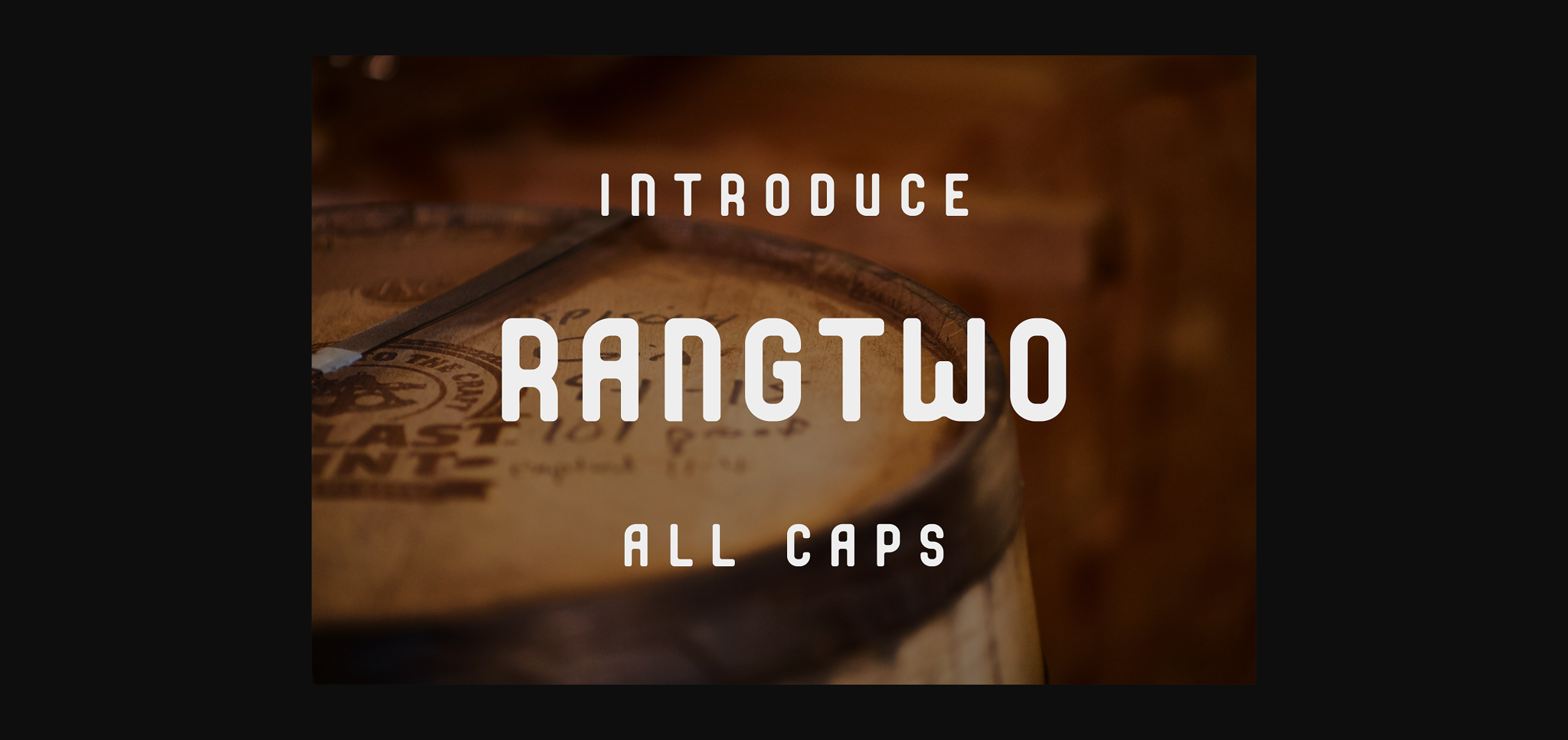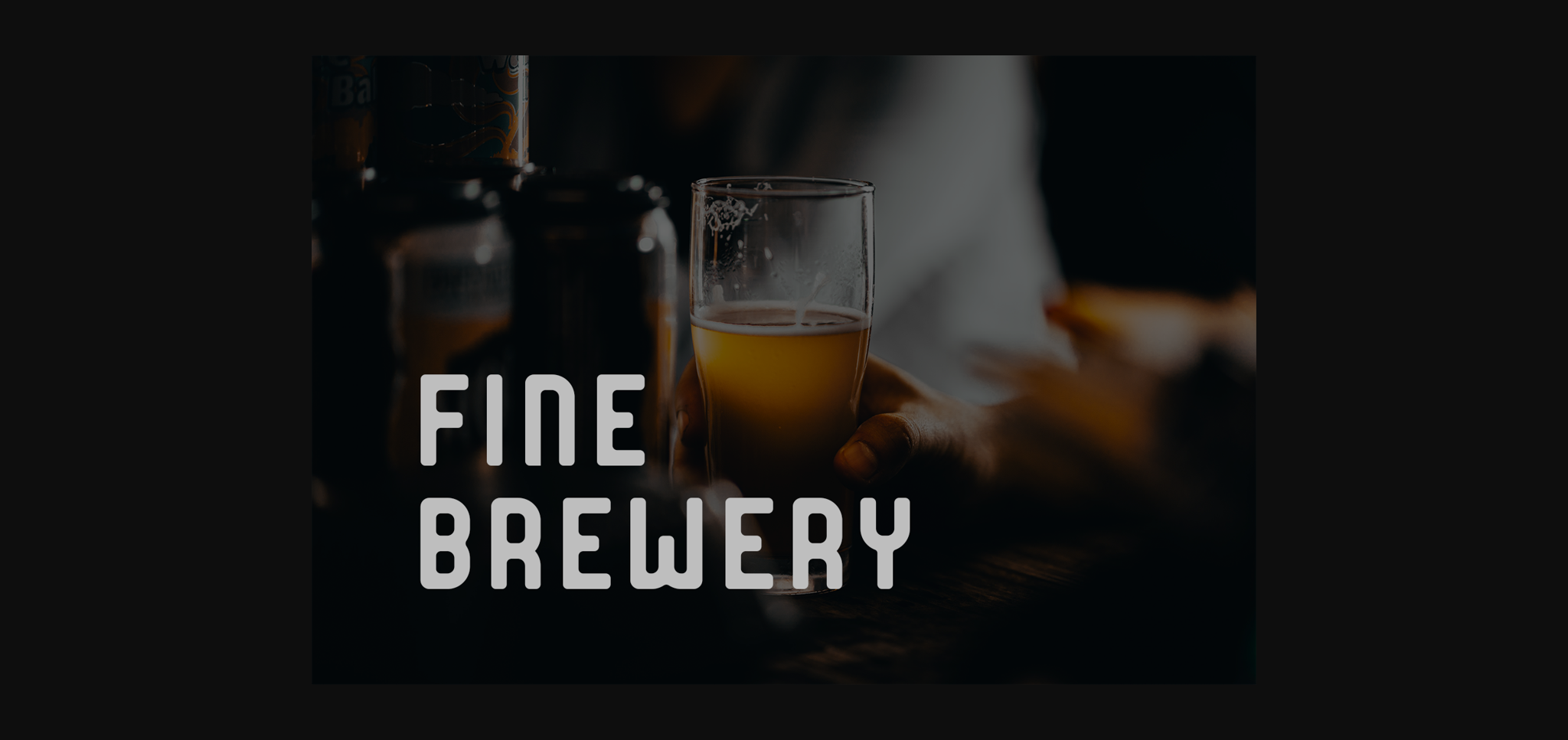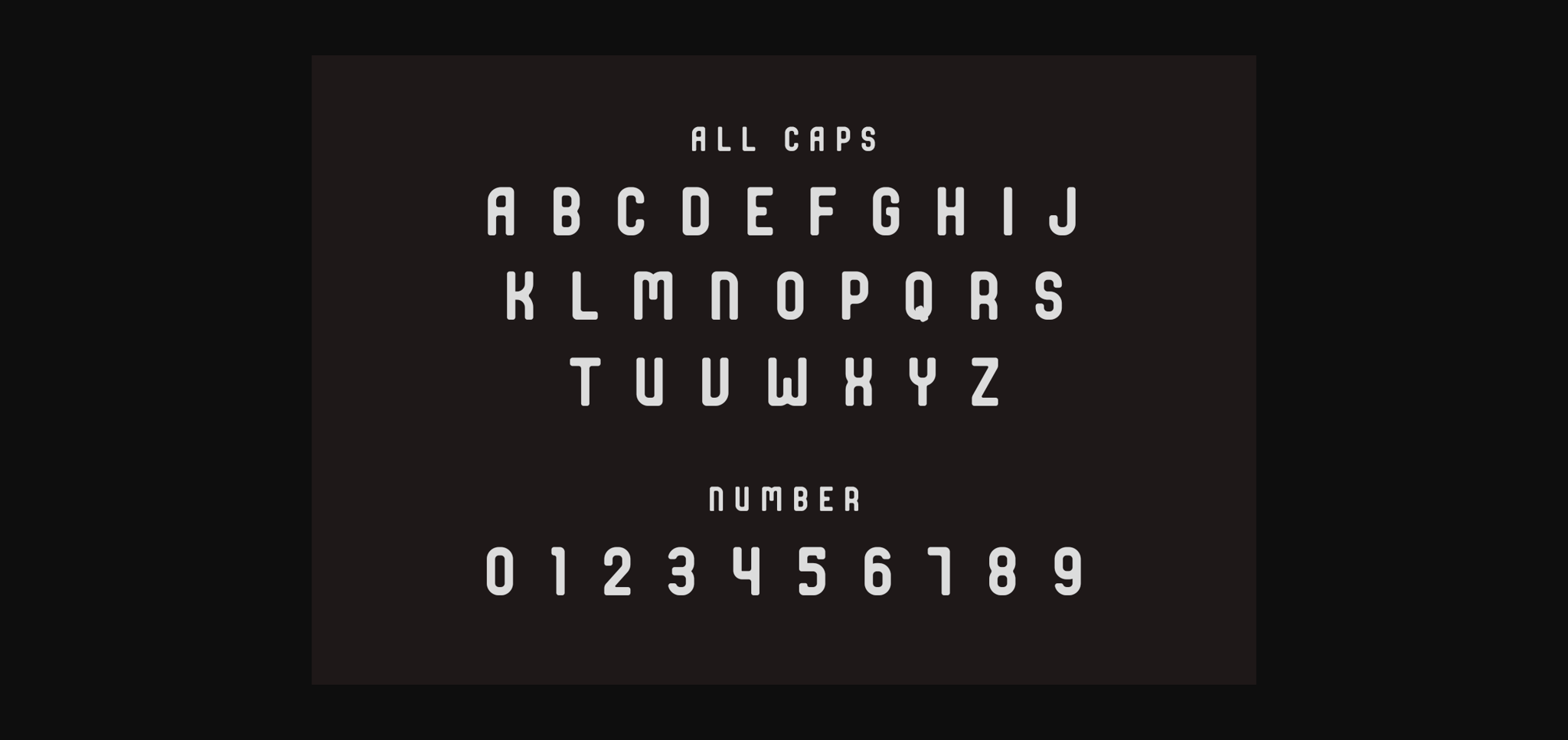
Rangtwo Font
About Rangtwo Font
Rangtwo is a fun and unique sans serif font. No matter the topic, this font will be an incredible asset to your fonts’ library, as it has the potential to elevate any creation.